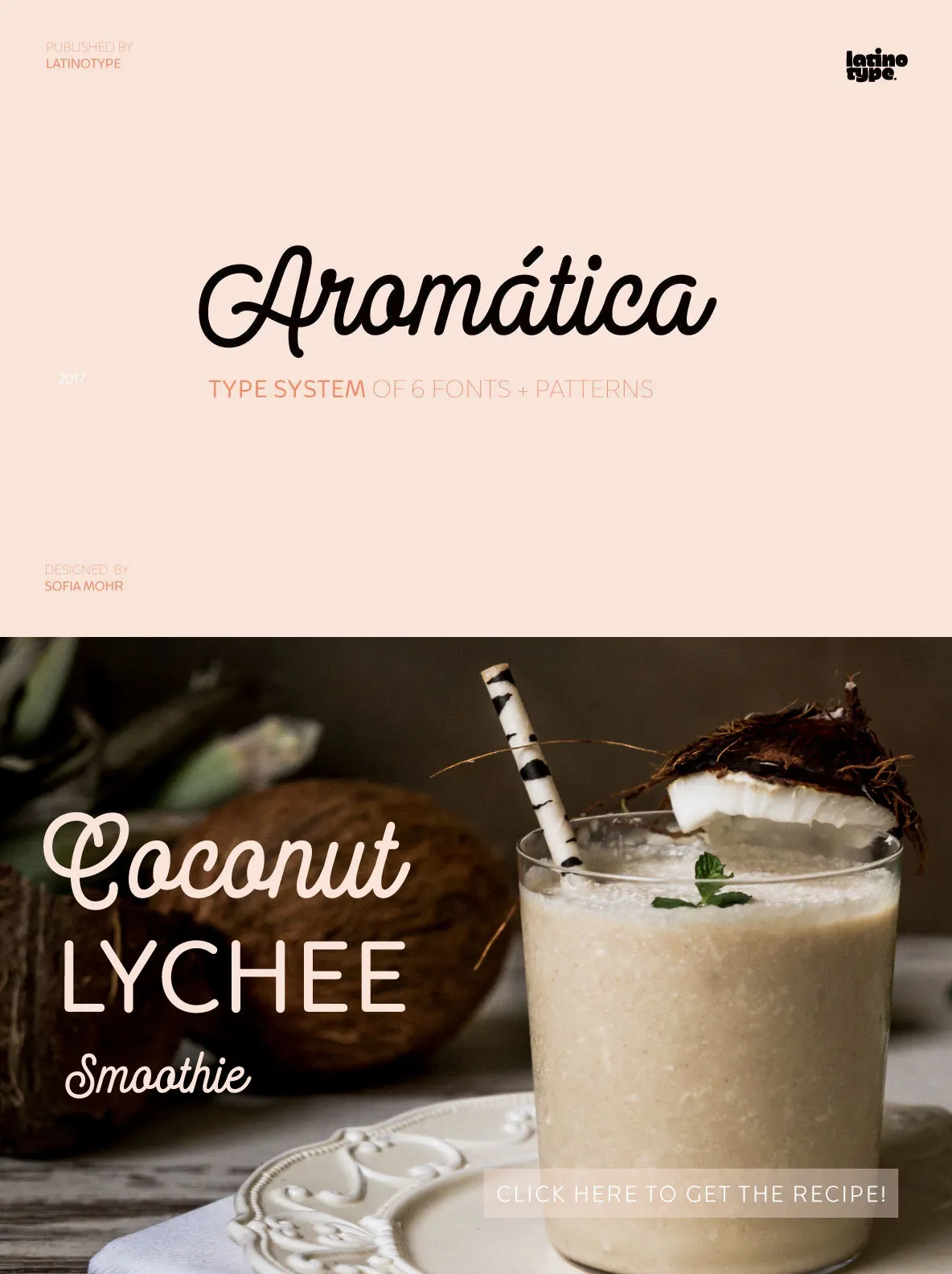
Aromática Typeface: Handwritten Simplicity Meets Clean Design
Aromática brings together the inviting character of handwriting with the clarity of modern type design. Its rounded forms create a soft, approachable appearance that remains highly functional and easy to read in both digital and print projects. This versatile typeface blends subtle curves with a straightforward structure, resulting in a balanced look that easily integrates with various design styles.
Seven individual fonts for diverse design needs
Monolinear Script for a fluid, hand-drawn touch
Sans and Serif variants—each crafted with legibility in mind
Consistent, clean strokes throughout the family
Ideal for branding, editorial, and packaging applications
With Aromática, you enjoy a typeface that stands out for its readability and subtle personality. Whether you’re designing headlines or detailed body text, this collection supports a sophisticated yet approachable visual language.